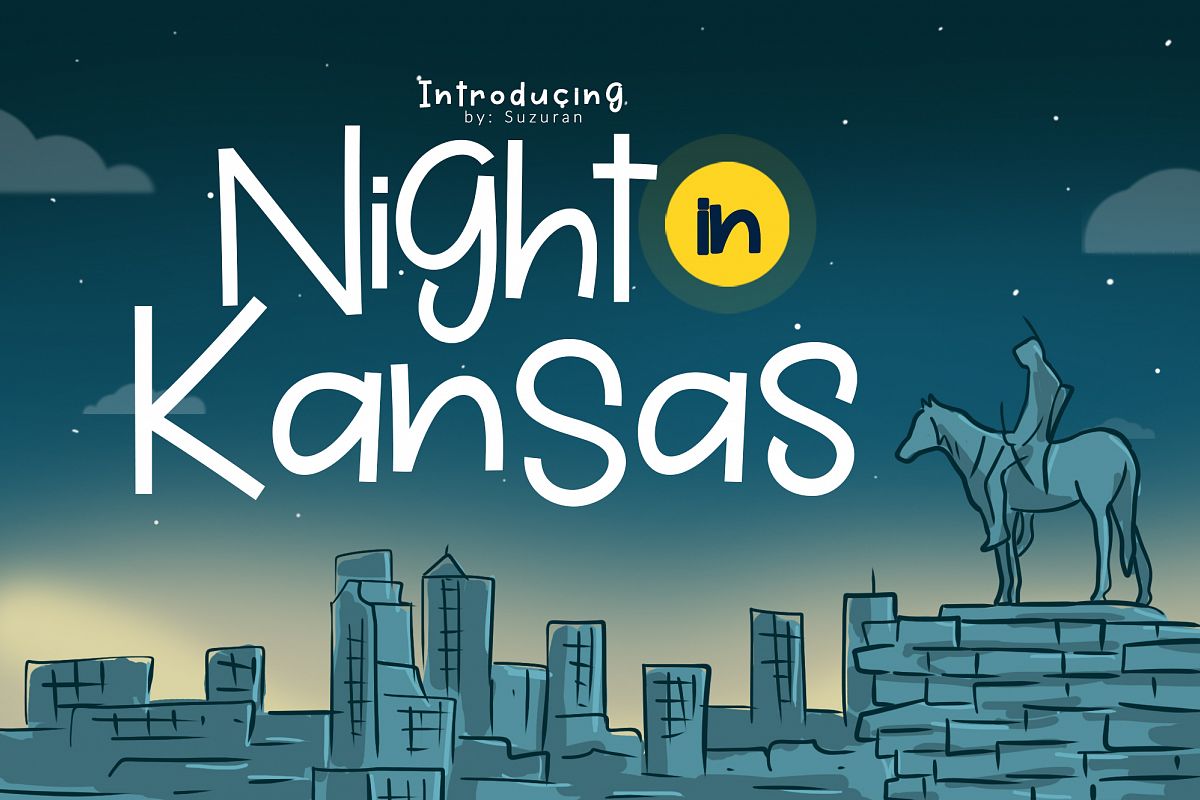
Night in Kansas
Night in Kansas 2 font with cheerful theme for your fun project. Night in Kansas Display font has 2 different styles, regular & bold. Night in Kansas font suitable for logo, branding, greeting card, branding, poster and any design that you create.